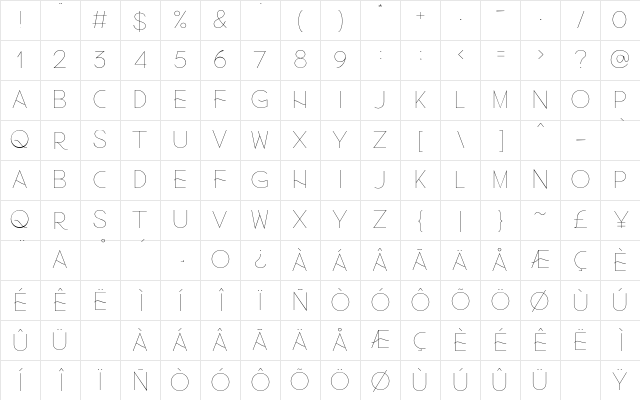
Complete Ch Games Thin glyph index. Displaying only characters natively supported by Ch Games Thin font.
Ch Games is a composed and adaptable typeface that performs quietly and consistently across a wide range of design contexts. Its slender proportions lend an understated elegance to any composition.